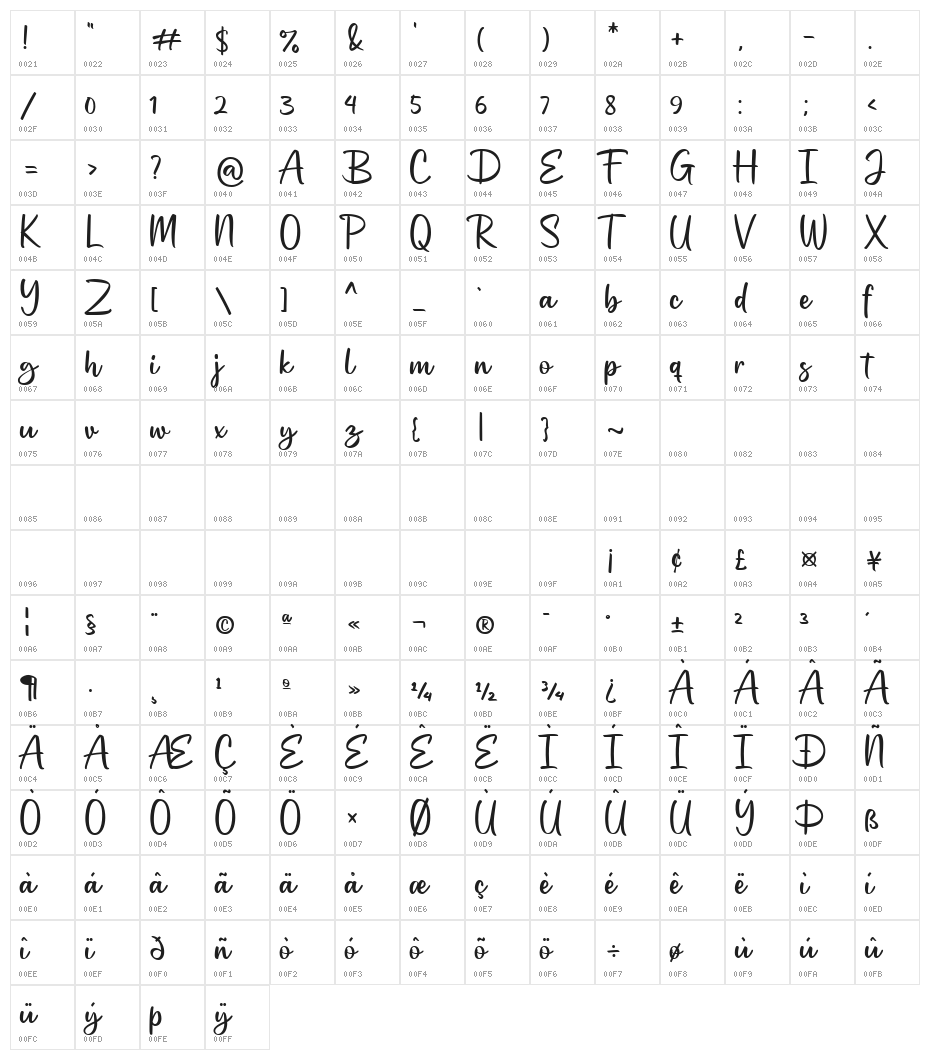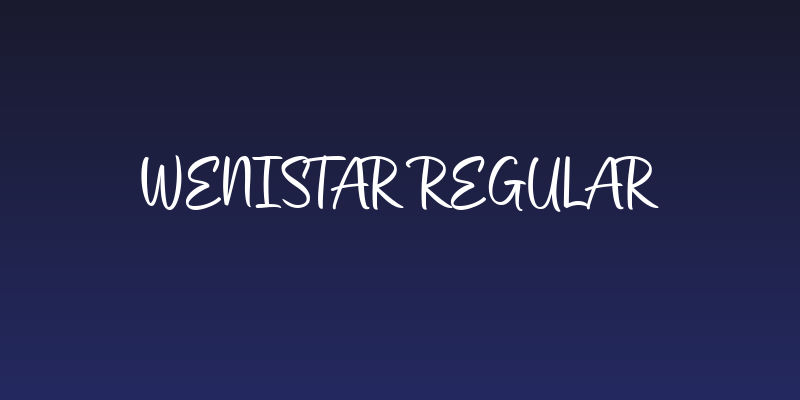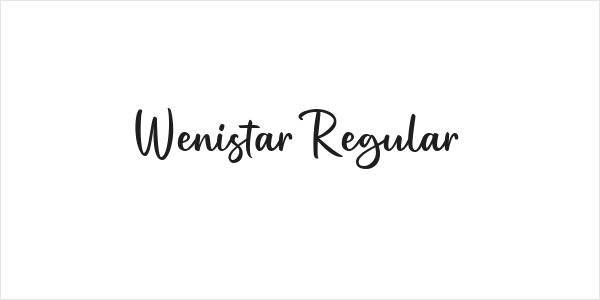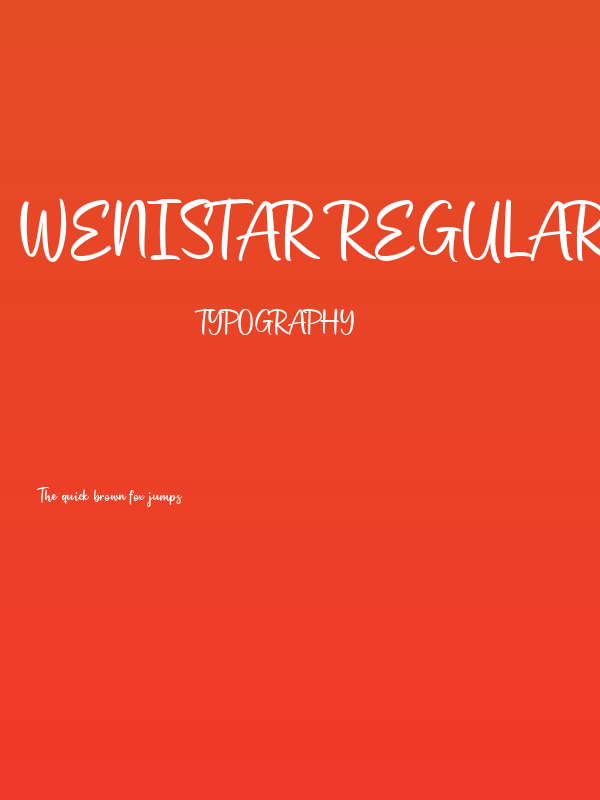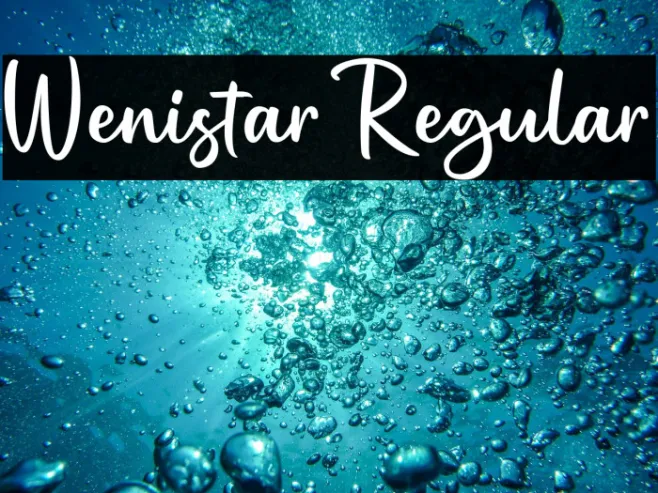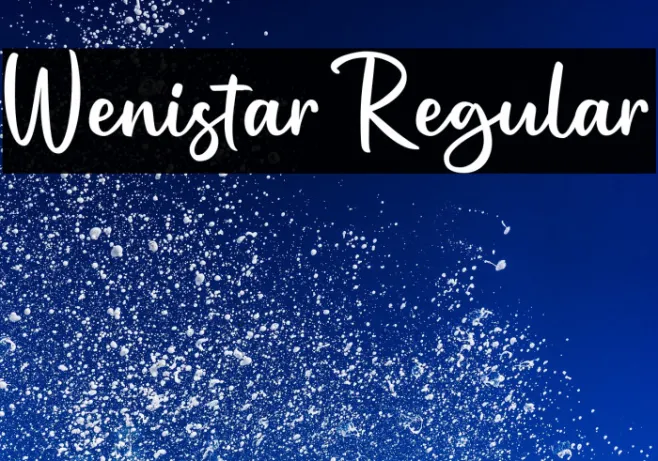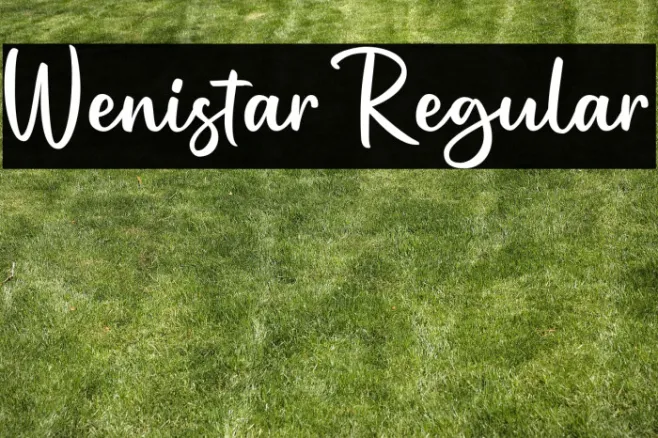
Wenistar Regular Font
Wenistar Regular Description
This font features a lively and flowing script style, characterized by its smooth, cursive letterforms that convey a sense of elegance and playfulness. The uppercase letters are bold and slightly elongated, while the lowercase letters maintain a consistent fluidity, enhancing readability. The numerals are well-balanced, matching the overall aesthetic of the font. Special characters are designed with the same attention to detail, ensuring they blend seamlessly with the letters. This font is ideal for projects that require a personal touch, such as invitations, greeting cards, or branding materials.